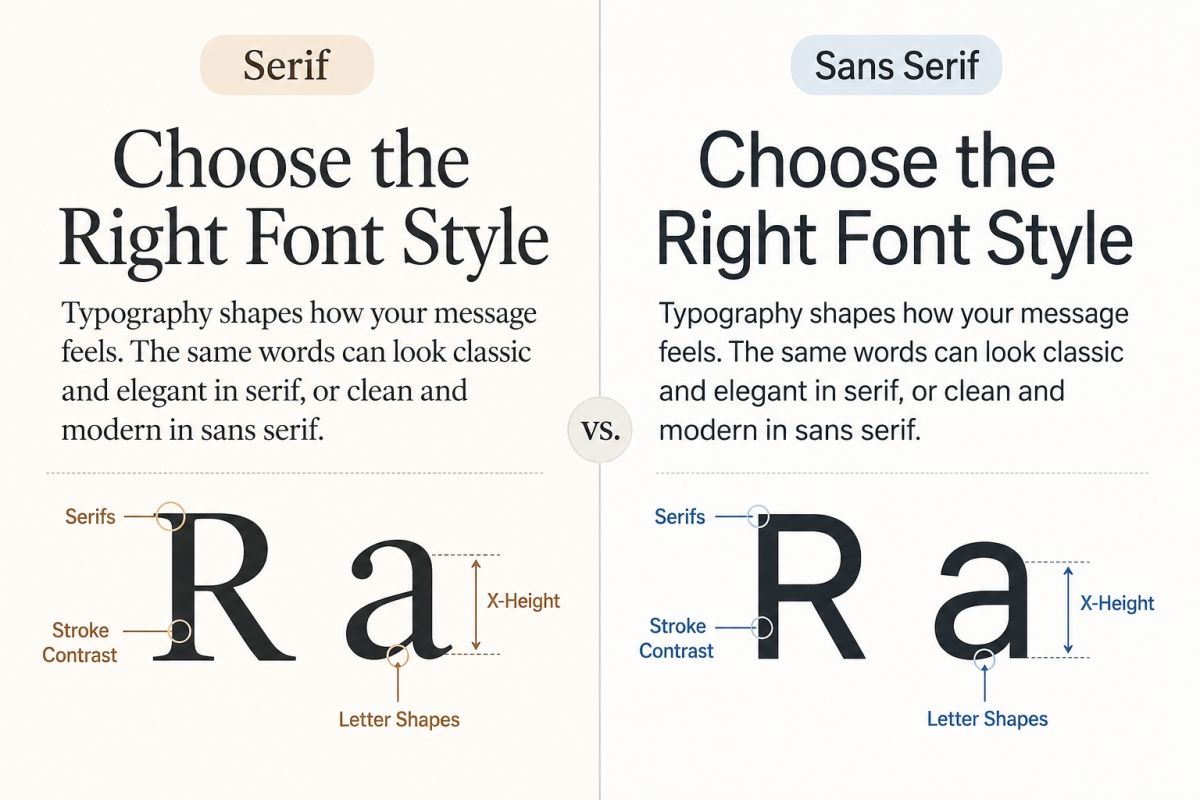
Serif vs Sans Serif Fonts: How to Choose the Right Style for Your Design
Choosing between serif and sans serif fonts sounds like a basic design decision.
Serif feels traditional. Sans serif feels modern. Pick one and move on.
In practice, it is rarely that simple.
A refined serif can feel surprisingly contemporary. A rounded sans serif can feel warm and nostalgic. A bold slab serif may look more energetic than a quiet geometric sans serif.
That is why I do not choose fonts by category alone.
I look at what the typography needs to do.
Does it need to attract attention? Build trust? Make a long paragraph comfortable to read? Fit inside a small product label? Give a brand more personality?
The serif vs sans serif fonts debate becomes much easier when you stop asking which category is better and start asking which one is better for the job.
In this guide, you will learn how serif and sans serif fonts differ, where each style works best, and how to choose between them for branding, websites, packaging, printables, social media, and other creative projects.
Serif Vs Sans Serif Typography Guide
What Is a Serif Font?
A serif font has small finishing strokes attached to the ends of its main letterforms.
You can usually see them clearly on letters such as:
• T
• E
• L
• I
• N
These finishing details may appear sharp, soft, curved, bracketed, flat, or block-like. Their shape depends on the typeface classification.
Serif fonts are often associated with books, newspapers, editorial design, luxury packaging, heritage brands, and formal communication. That association comes partly from their long history in print.
However, serif does not automatically mean old-fashioned.
Modern serif families can feel clean, artistic, fashionable, bold, experimental, or even futuristic. The category is much broader than fonts that resemble traditional book typography.
Common serif subcategories include:
Old-Style Serif
Old-style serif fonts often have soft curves, moderate stroke contrast, and a natural rhythm.
They can feel literary, warm, established, and human.
Use them for:
• Books
• Editorial layouts
• Educational content
• Heritage branding
• Food packaging
• Lifestyle websites
Transitional Serif
Transitional serifs usually have more contrast and sharper details than old-style designs.
They often feel structured and confident without becoming overly decorative.
Use them for:
• Professional publications
• Premium websites
• Brand presentations
• Business stationery
• Formal invitations
Modern or Didone Serif
Modern serifs often feature thin hairlines, strong vertical stress, and dramatic contrast between thick and thin strokes.
They can feel elegant, fashionable, polished, and luxurious.
Use them for:
• Beauty branding
• Fashion campaigns
• Magazine covers
• Fragrance packaging
• Wedding stationery
• High-end social media templates
Slab Serif
Slab serifs have thick, block-like finishing strokes.
They feel heavier and more direct than many traditional serif styles.
Use them for:
• Posters
• Apparel graphics
• Coffee branding
• Outdoor products
• Product packaging
• Retro-inspired logos
The important point is that “serif” describes a structural feature. It does not define one fixed personality.
What Is a Sans Serif Font?
A sans serif font does not have the small finishing strokes found in serif typefaces.
The word “sans” means “without,” so sans serif literally means “without serifs.”
Its letterforms may look simpler, but simple does not mean neutral.
Sans serif fonts can feel technical, playful, elegant, friendly, minimal, industrial, futuristic, or handmade. The impression depends on their proportions, spacing, curves, weight, and construction.
Common sans serif subcategories include:
Grotesque Sans Serif
Grotesque sans serif fonts often have practical shapes and slightly irregular details.
They can feel direct, functional, urban, and confident.
Use them for:
• Posters
• Editorial design
• Fashion branding
• Strong headlines
• Contemporary packaging
Neo-Grotesque Sans Serif
Neo-grotesque fonts usually have a cleaner and more controlled appearance.
They often work well in systems where consistency matters.
Use them for:
• Websites
• Corporate identities
• Signage
• Presentations
• User interfaces
• Information-heavy layouts
Geometric Sans Serif
Geometric sans serifs are built around circles, straight lines, and simplified forms.
They can feel modern, architectural, stylish, and precise.
Use them for:
• Minimal branding
• Technology products
• Portfolio websites